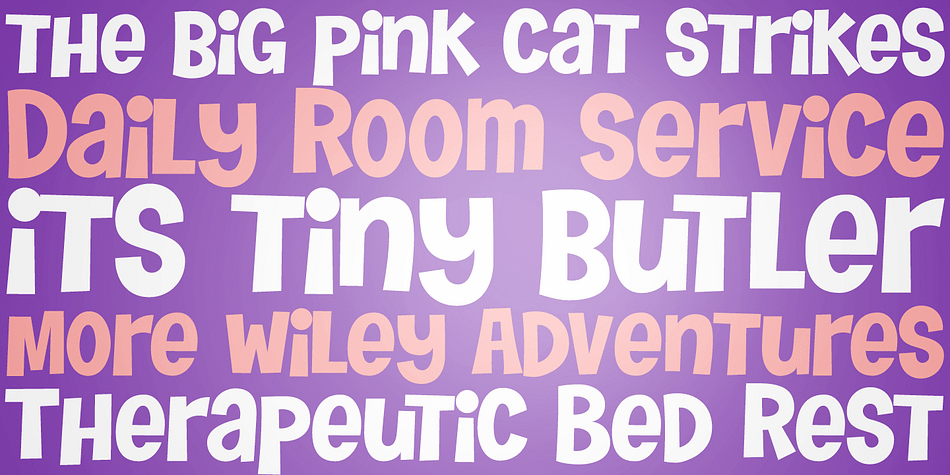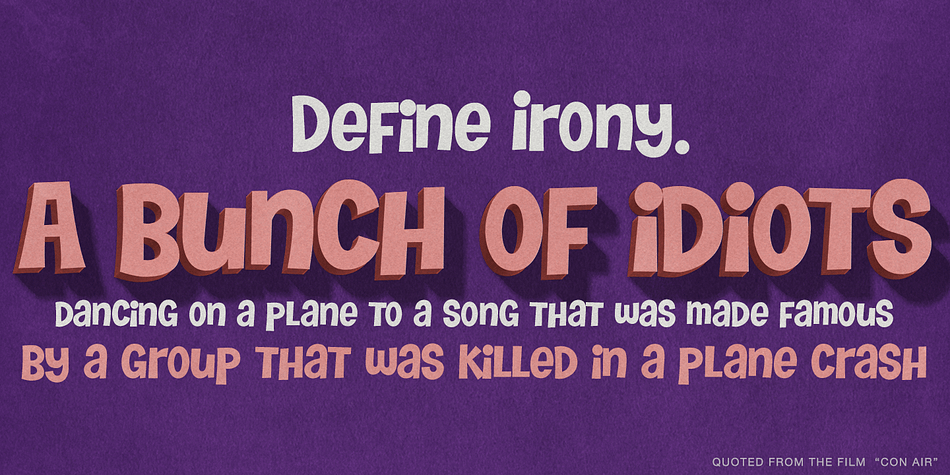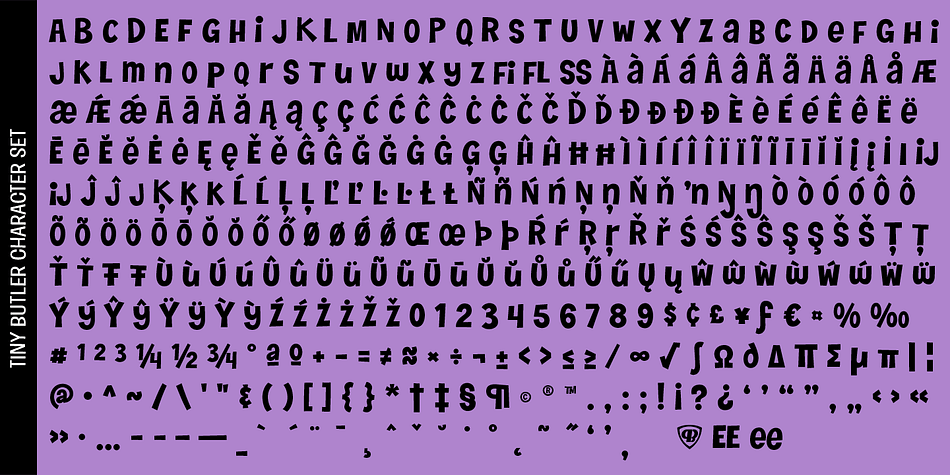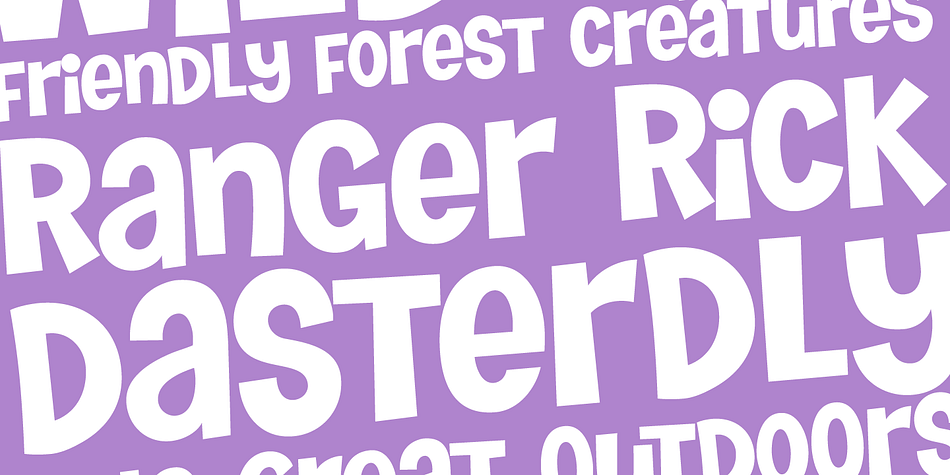
Designed by Phil Bracco, Tiny Butler PB is a comic and hand display font published by Pink Broccoli.
A light hearted unicase typeface inspired by the titling of the 1977 Pink Panther cartoon, Therapeutic Pink.
| Styles | Comic, Hand Display |
| Designer | Phil Bracco |